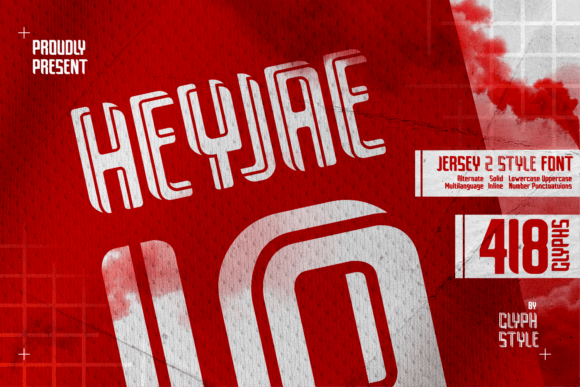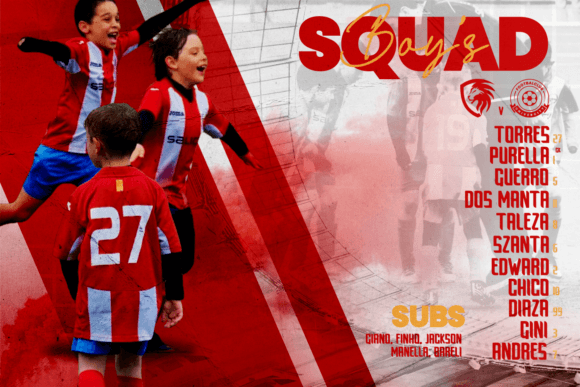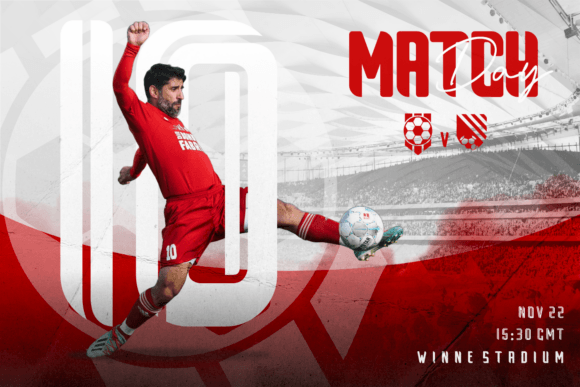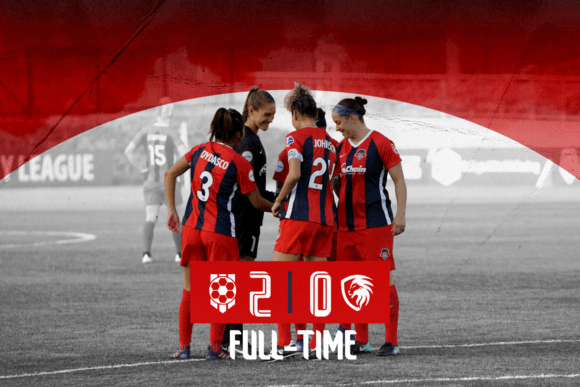
Heyjae Font: Bold Display Typography for Sport Logos & Branding
About the Heyjae Font
Introducing the Heyjae Font, a beautifully crafted typeface designed to elevate your creative projects. Heyjae is a sans serif display font, with a sports theme commonly found in jersey designs or other football themes. Available in 2 styles, inline and regular or solid
Heyjae is perfect for branding projects, logos, wedding designs, social media posts, advertisements, product packaging, product designs, labels, photography, watermarks, invitations, stationery, and any project that requires a sense of jersey/sport font.
Heyjae’s bold, energetic personality makes it ideal for headlines, short impactful text in posters and advertisements, and branding applications where a sporty, dynamic feel is desired. It excels in packaging design for athletic apparel or energy drinks, and works well for logos that need a strong visual presence. However, its condensed letterforms and strong weight are less suitable for body text or UI elements requiring high readability over long stretches.
Pairing Heyjae with a clean sans-serif like Open Sans for body copy provides excellent contrast and readability. For a more sophisticated look, consider pairing it with a classic serif like Garamond or a minimalist geometric sans-serif like Futura. These pairings balance Heyjae’s athletic energy with a touch of refinement depending on the overall design goal.
The inline style adds a further layer of visual interest, working especially well for detailed logos or smaller-scale applications where the thinner strokes create a unique texture. Avoid using both styles in close proximity, as this could lead to visual clutter.